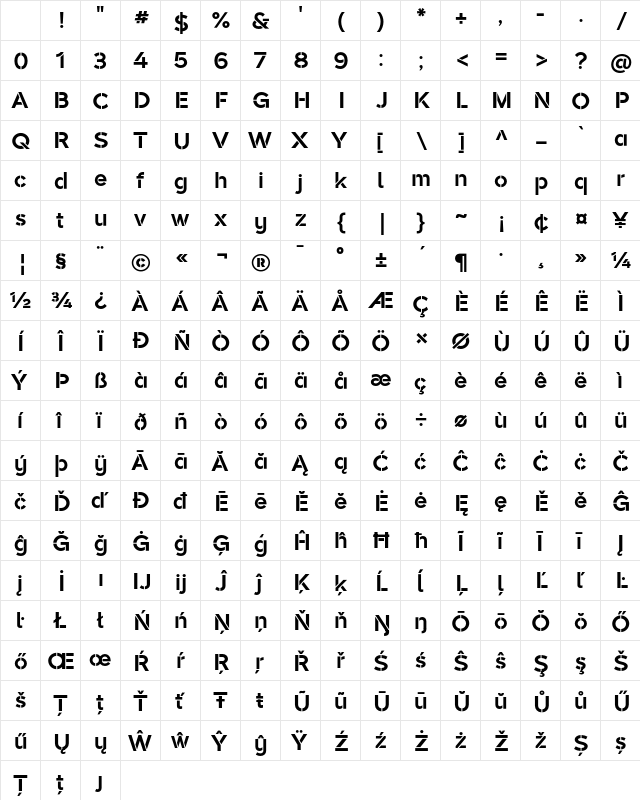
Complete Akwa Stencil Demo Bold glyph index. Displaying only characters natively supported by Akwa Stencil Demo Bold font.
Akwa Stencil Demo borrows the utilitarian aesthetic of stencil lettering, with its characteristic cutaways and no-frills construction lending an industrial edge. Its bold stroke weight gives it real presence on the page.
Pro Tip: Use Akwa Stencil Demo at large sizes on packaging, posters, or apparel where the stencil cutaways read clearly. Avoid small sizes where those gaps become visual noise.